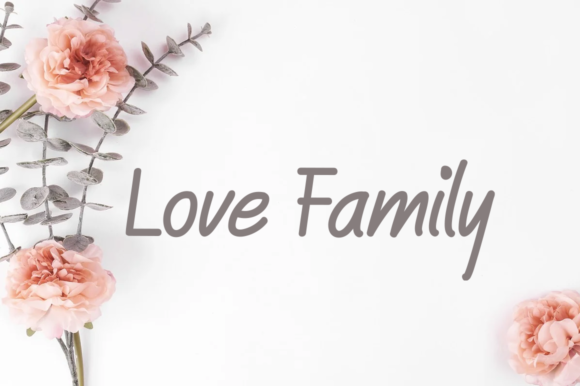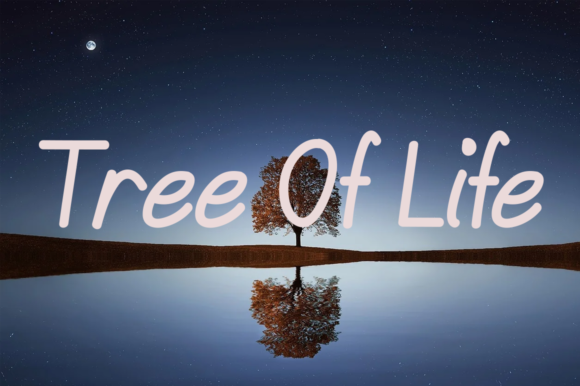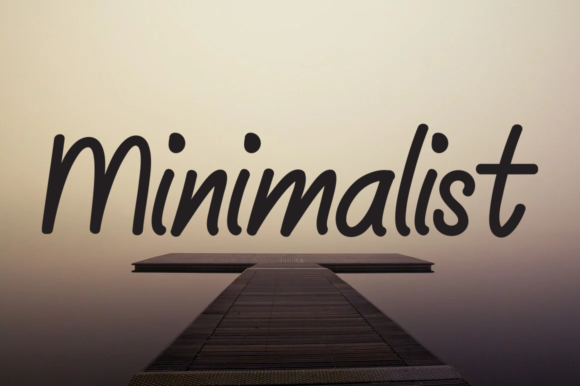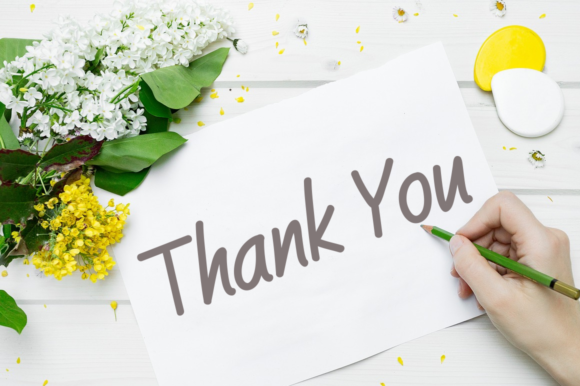
Minimalist House Font
About Minimalist House Font
Minimalist House is a neat and friendly handwritten font. Its natural and unique style makes it incredibly fitting to a large pool of designs. Have fun with this beautiful font and explore its endless variations.